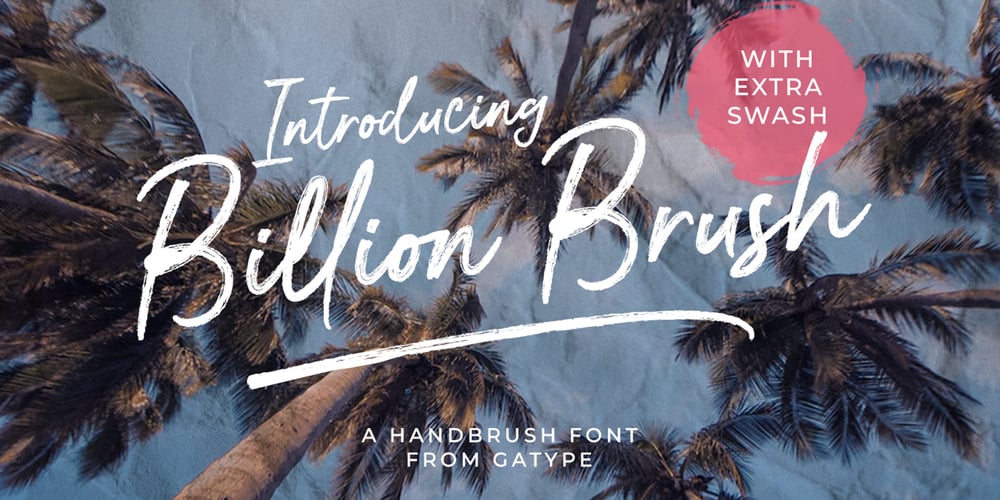
Billion Brush Font Family was designed by khaidir and published by Gatype. Billion Brush contains 2 styles and family package options. Billion Brush is a handwritten font with a rough texture, the process of creating type by stroke with strong, fast strokes on paper to create the rough texture that is characteristic of Billion Brush, so it is a font with a rough, dry brush style.Anything made with this font is sure to be wrapped in ultra-contemporary style and elegance. We made some preview pictures as a guide for designing directions, please check them allRegards and thank you very much..